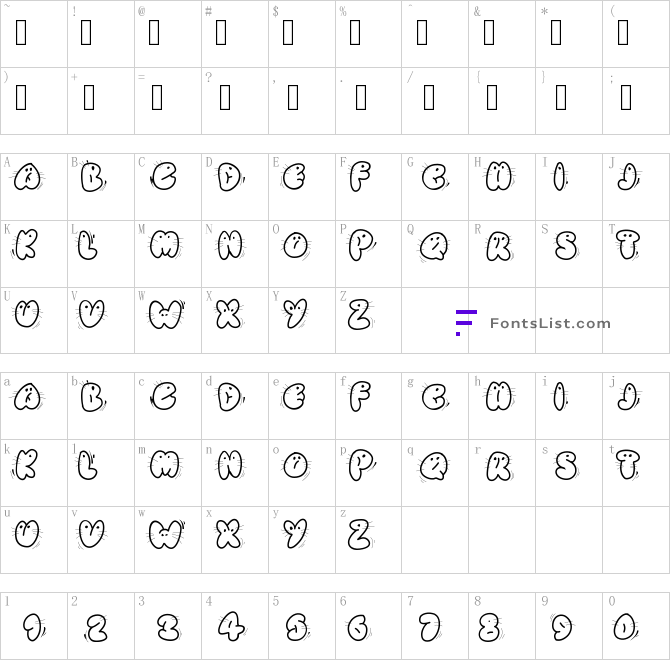
- Font Name:Animaletters
Animaletters.ttf is a very beautiful artistic font, Animaletters.ttf is widely used in the design and printing of various books and pictures,Animaletters.ttf has a strong visual impact,Animaletters.ttf is a commonly used font in newspapers, magazines and books, and is used in posters, e-commerce Poster design, store design, logo design, font design and other fields.Animaletters.